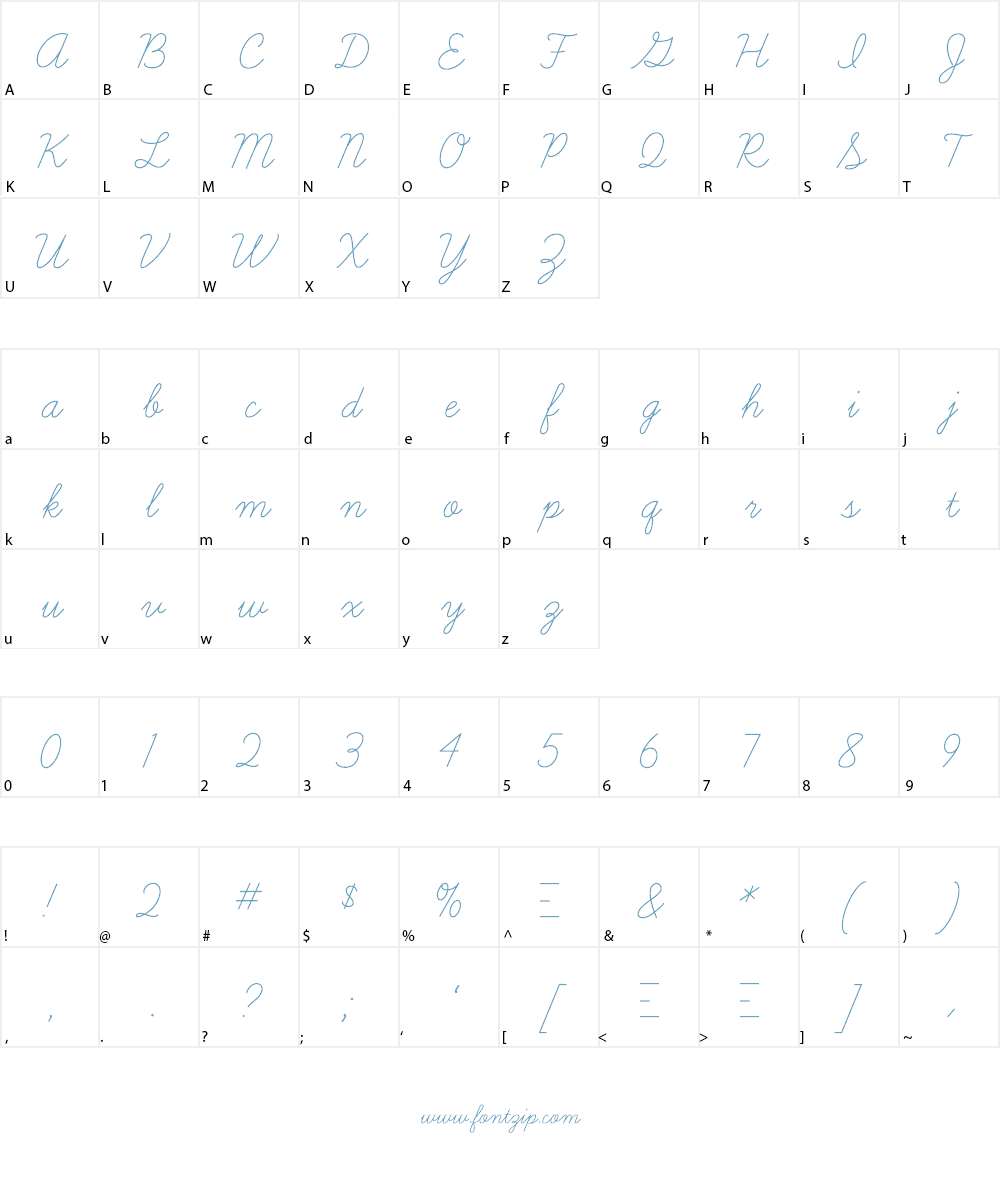
Learning Curve has had a major update! This font mimics traditional cursive lettering practice worksheets but is more modernized and a style that I developed from my own handwriting. What I like most about this font is that it looks like a robot made it. I'm not sure if you'd want to actually use it to teach penmanship but who am I to say? There are some warmup dingbats located in place of the following glyphs (Opt-t or Alt-0134) (Shift-Opt-7 or Alt-0135) (Shift-Opt-= or Alt-0177) (Opt-m or Alt-0181) just in case. To finish a starting letter press the ~ key before that letter or just use contextual alternates with the OpenType version!